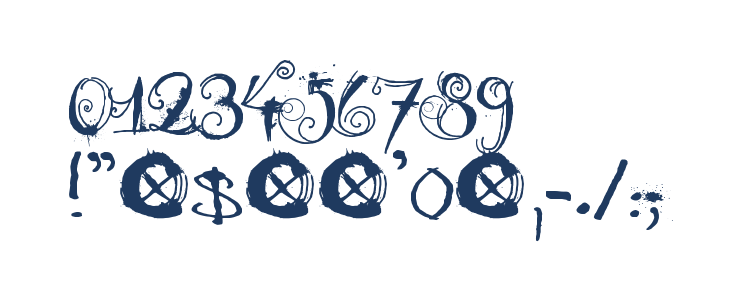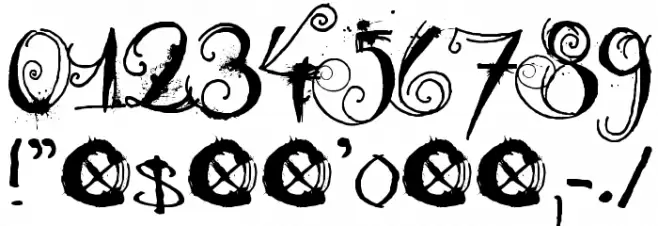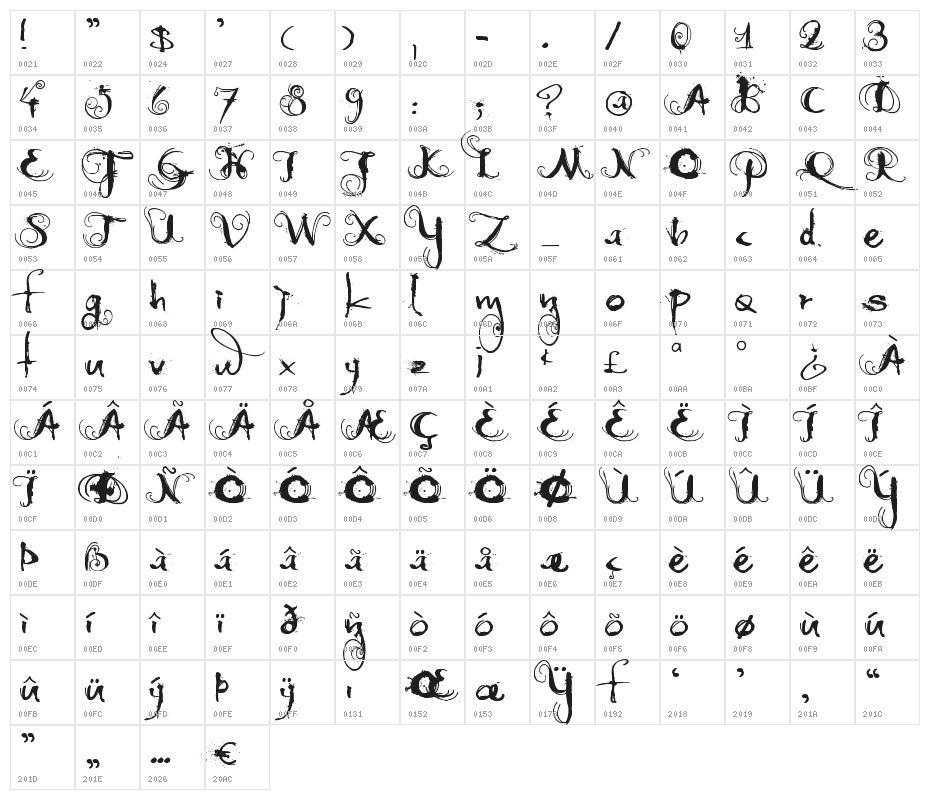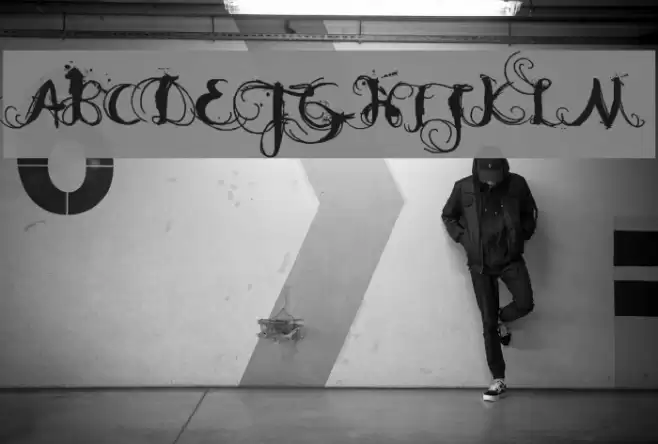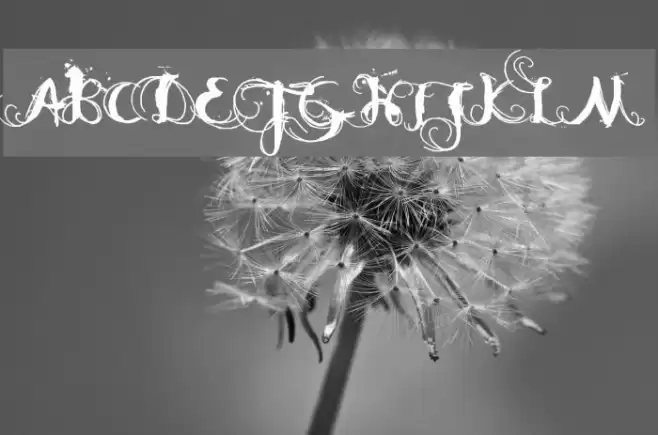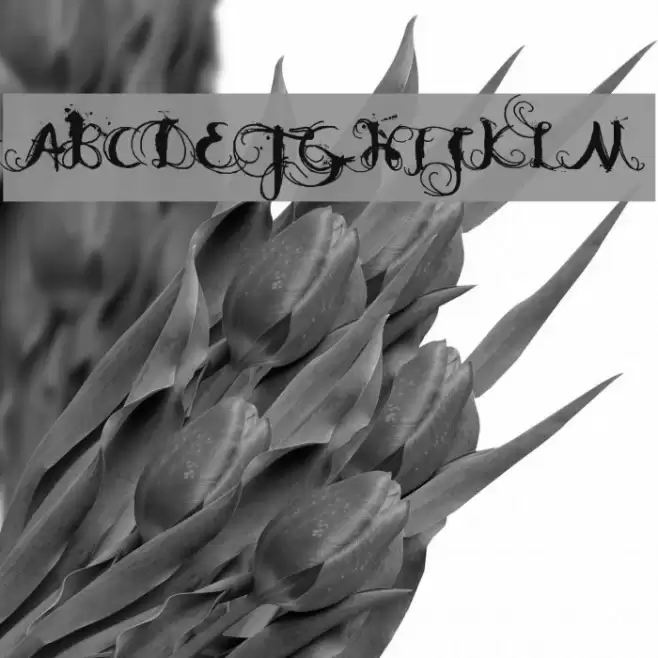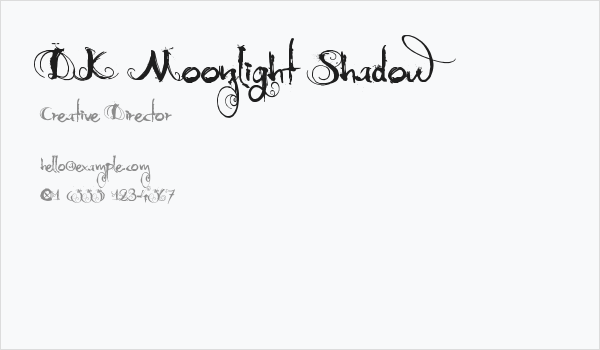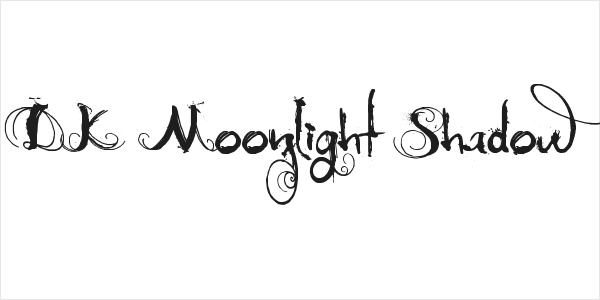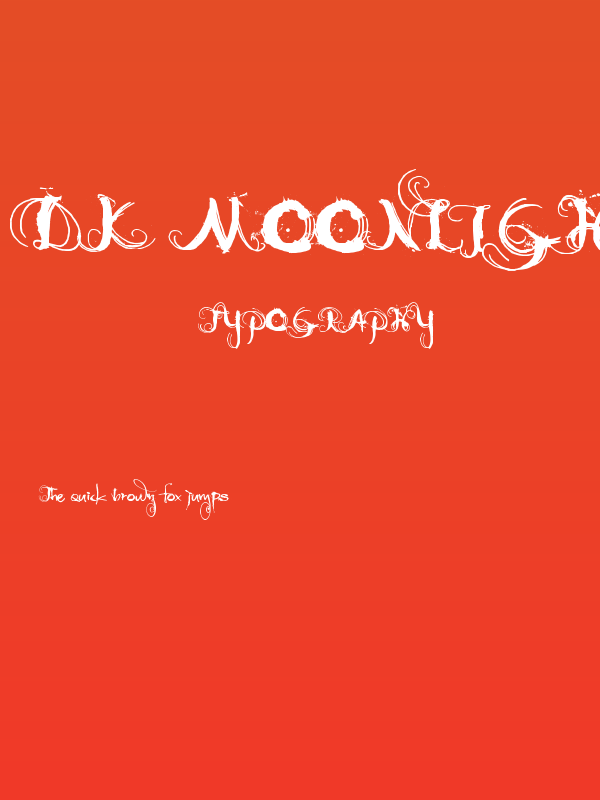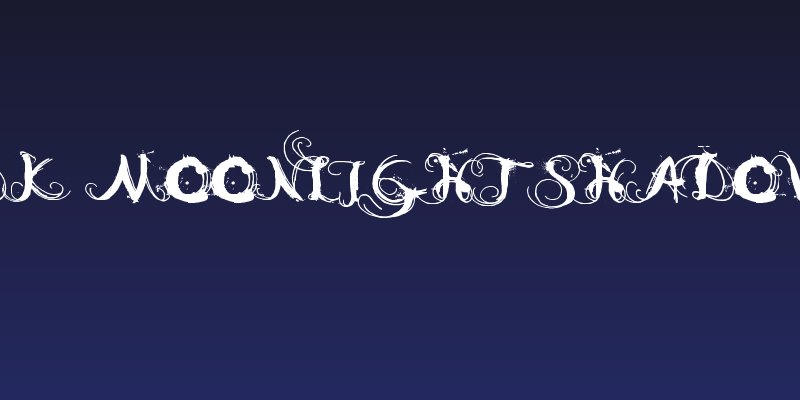
DK Moonlight Shadow Font
DK Moonlight Shadow Description
This font features an intricate and artistic design, characterized by elaborate swirls and flourishes that extend from the main strokes of each character. The uppercase letters are particularly ornate, with decorative elements that give them a whimsical and almost mystical appearance. The lowercase letters maintain a similar style, though they are slightly more restrained, allowing for better readability. The numbers and special characters continue the theme with unique embellishments that make each symbol stand out. Overall, the font exudes a sense of elegance and creativity, making it suitable for projects that require a touch of fantasy or artistic flair.
| Proposed Projects | Ideal for fantasy book covers, artistic posters, wedding invitations, and any project needing a whimsical touch. |